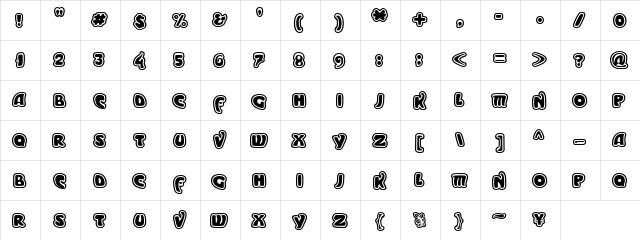
Moderno Outline
| Style | Outline |
Design Context for Moderno Typeface
Moderno brings ornamental detail and strong personality to headlines and identities, where visual impact matters more than quiet functionality.
Font Pairing: Pair with a clean neutral sans-serif for body copy to let Moderno's character lead without overwhelming the composition.
Pro Tip: Treat Moderno as the centrepiece of your typographic hierarchy. One strong heading set in a decorative face can carry an entire layout.